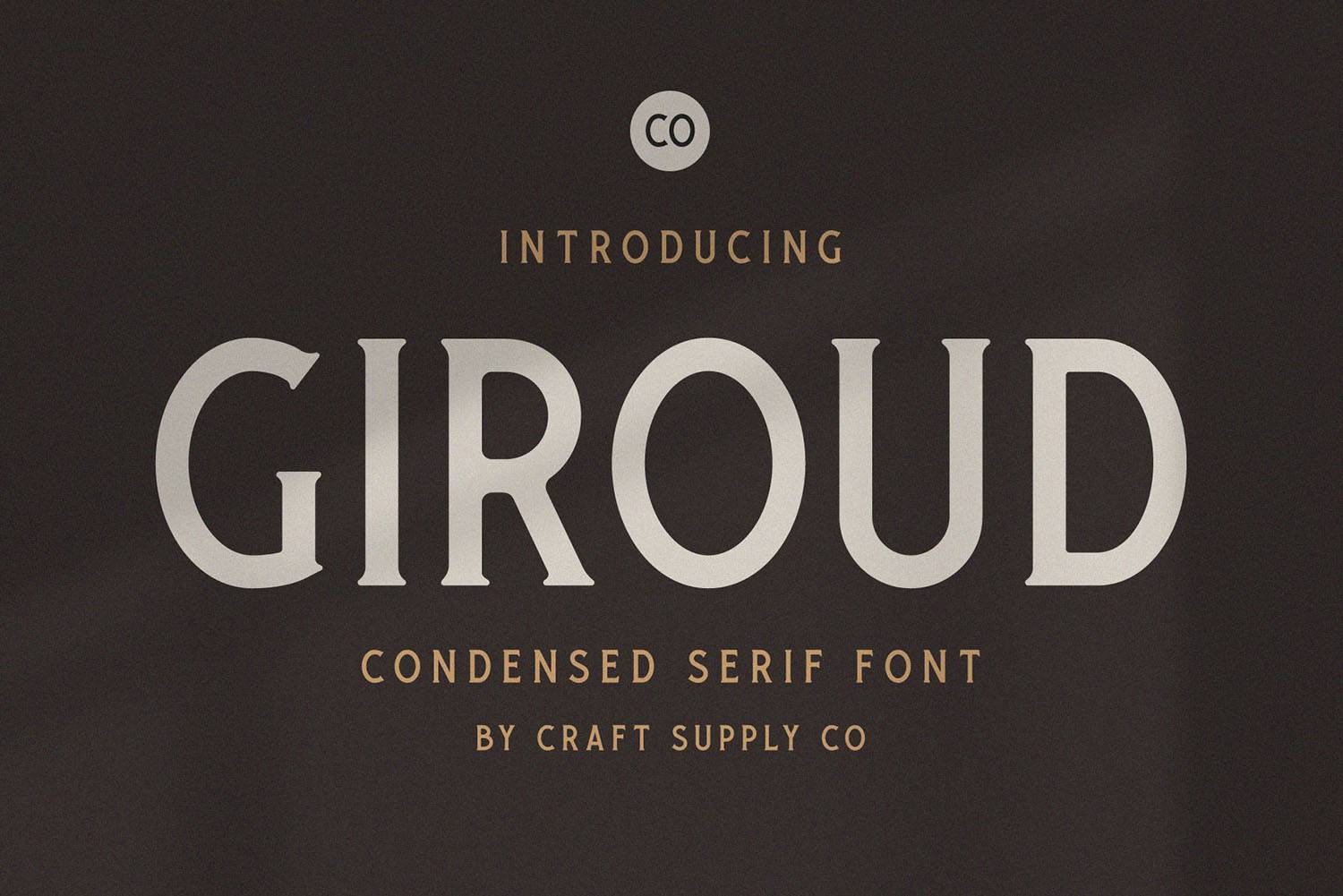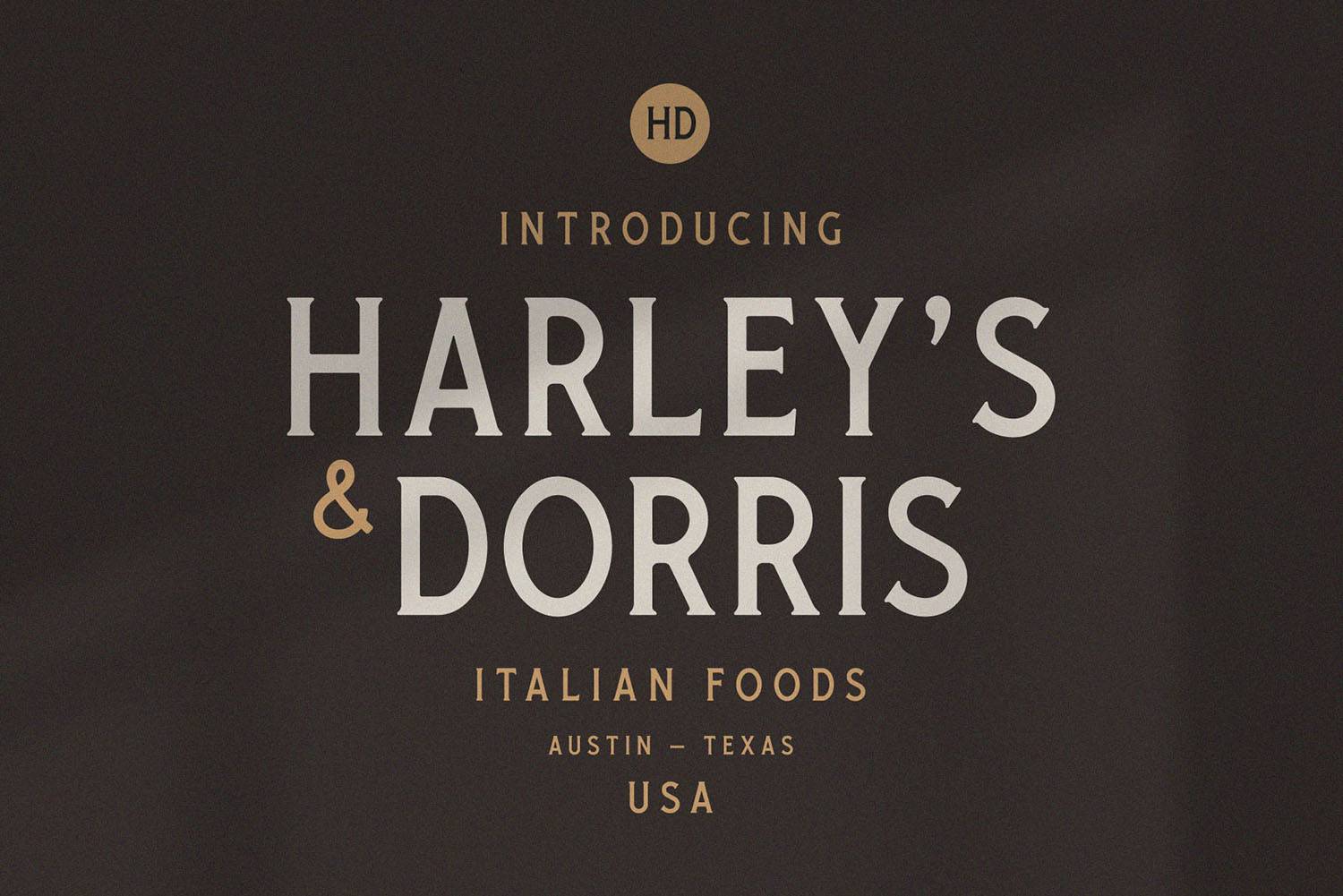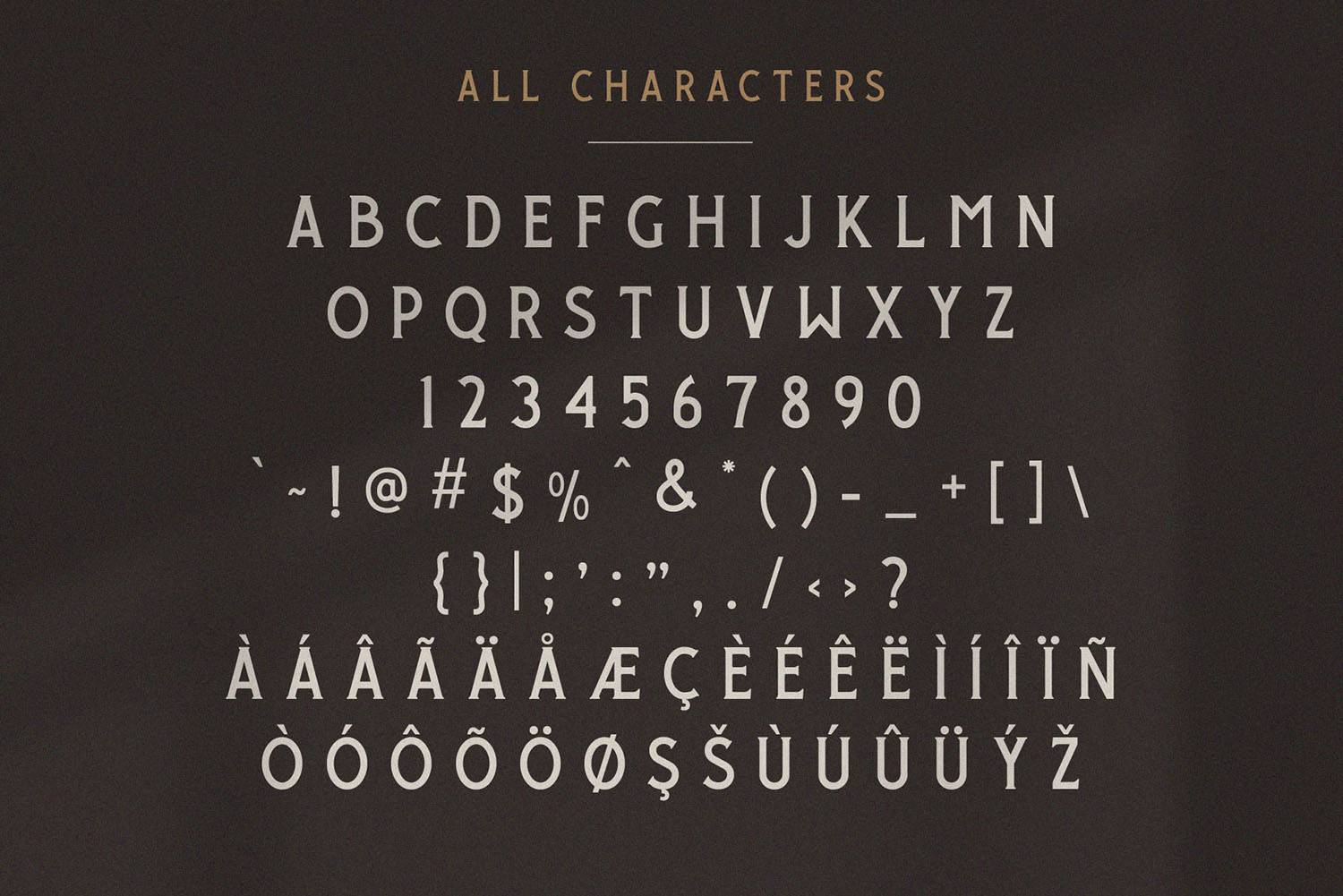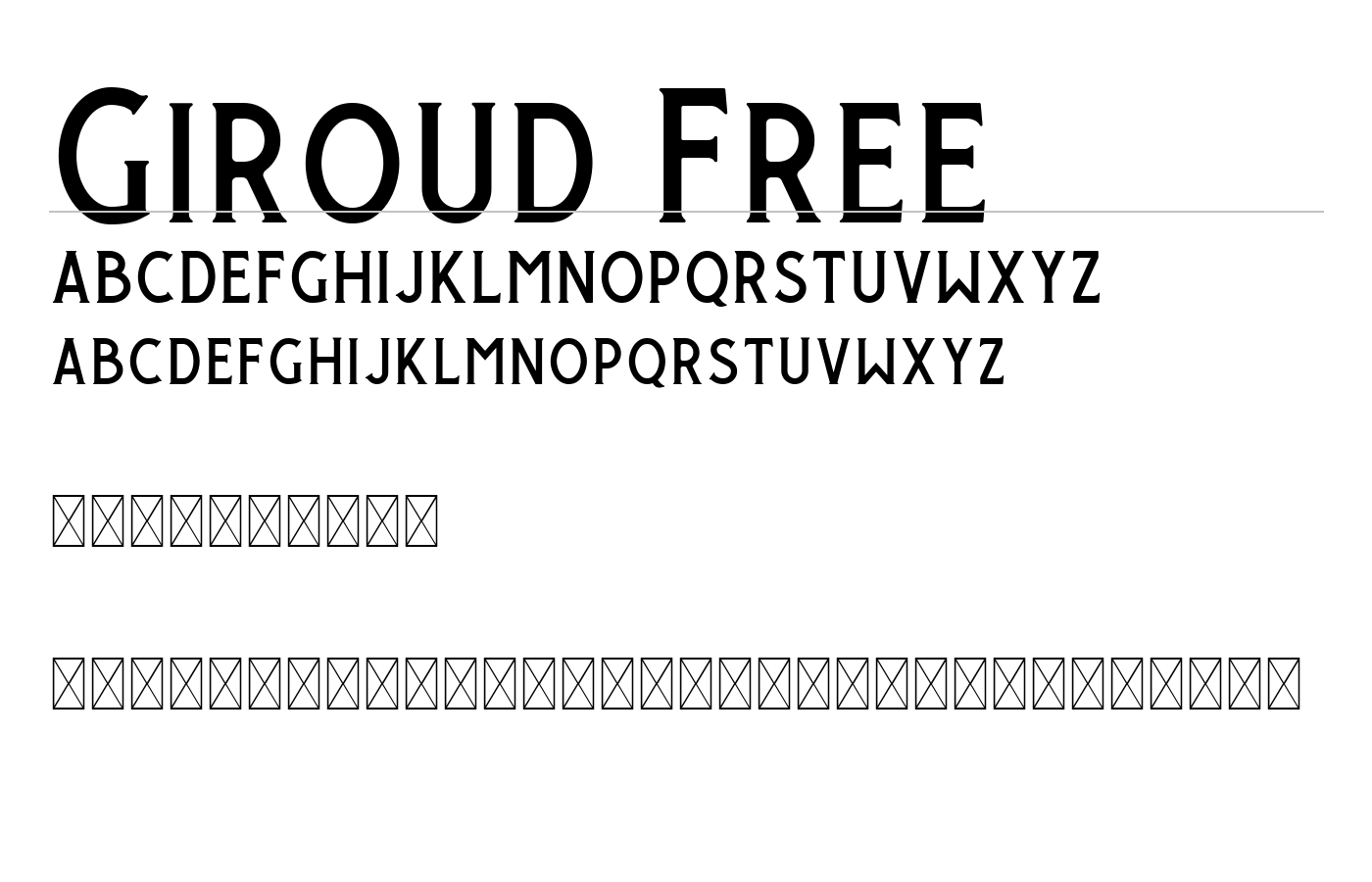
Giroud is a refined serif font that features a distinct blend of sharp and subtle strokes, giving it a unique and slightly vintage character. Its tall, narrow letterforms with moderate contrast and delicately bracketed serifs make it ideal for elegant headlines, editorial designs, and branding that seeks a classic yet approachable tone. This font's crisp structure and stylized details work well to convey sophistication without feeling overly formal.
Giroud Font
About Giroud Font